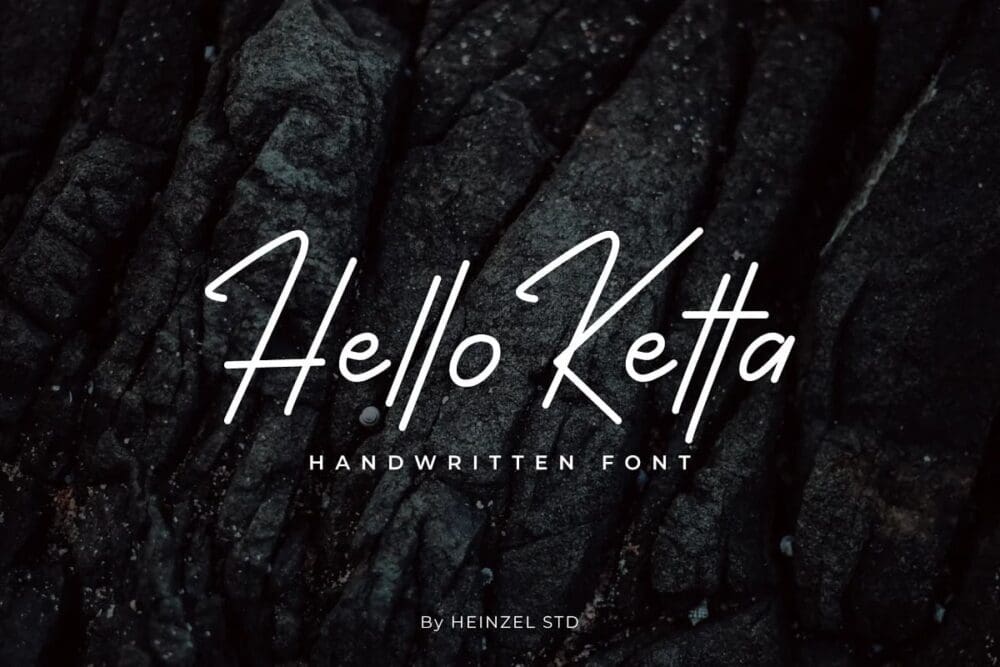
Hello Ketta Handwritten Font
Hello Ketta Handwritten Font is a new modern & fresh font looks elegant, natural, stylish, and perfect for any awesome projects that need handwriting taste. Hello Ketta would perfect for photography, watermark, logos & branding, invitation, stationery, wedding designs, product packaging, special events, or anything that needs handwriting taste.